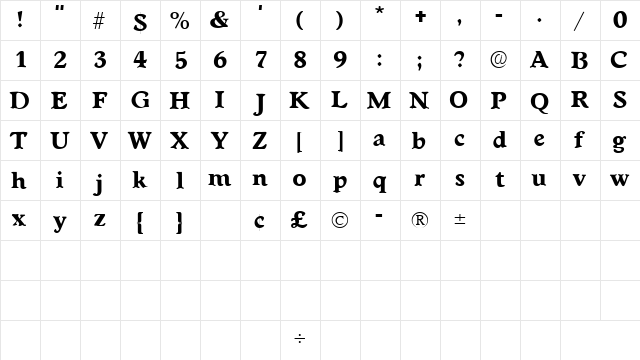
CupolaSSK Regular
Design Context for CupolaSSK Typeface
CupolaSSK offers clean, dependable letterforms without strong stylistic allegiance, making it a practical choice for designers who need flexibility.